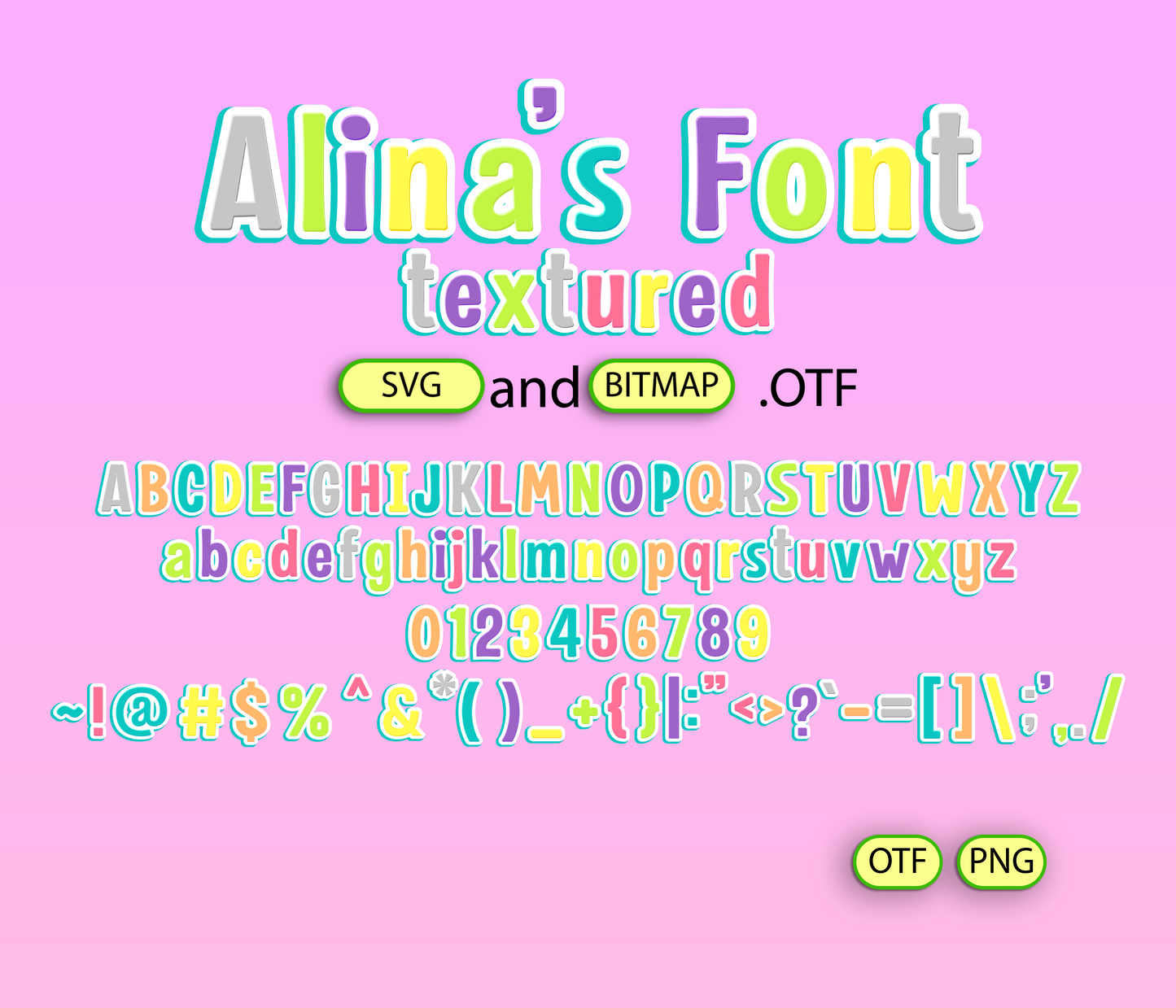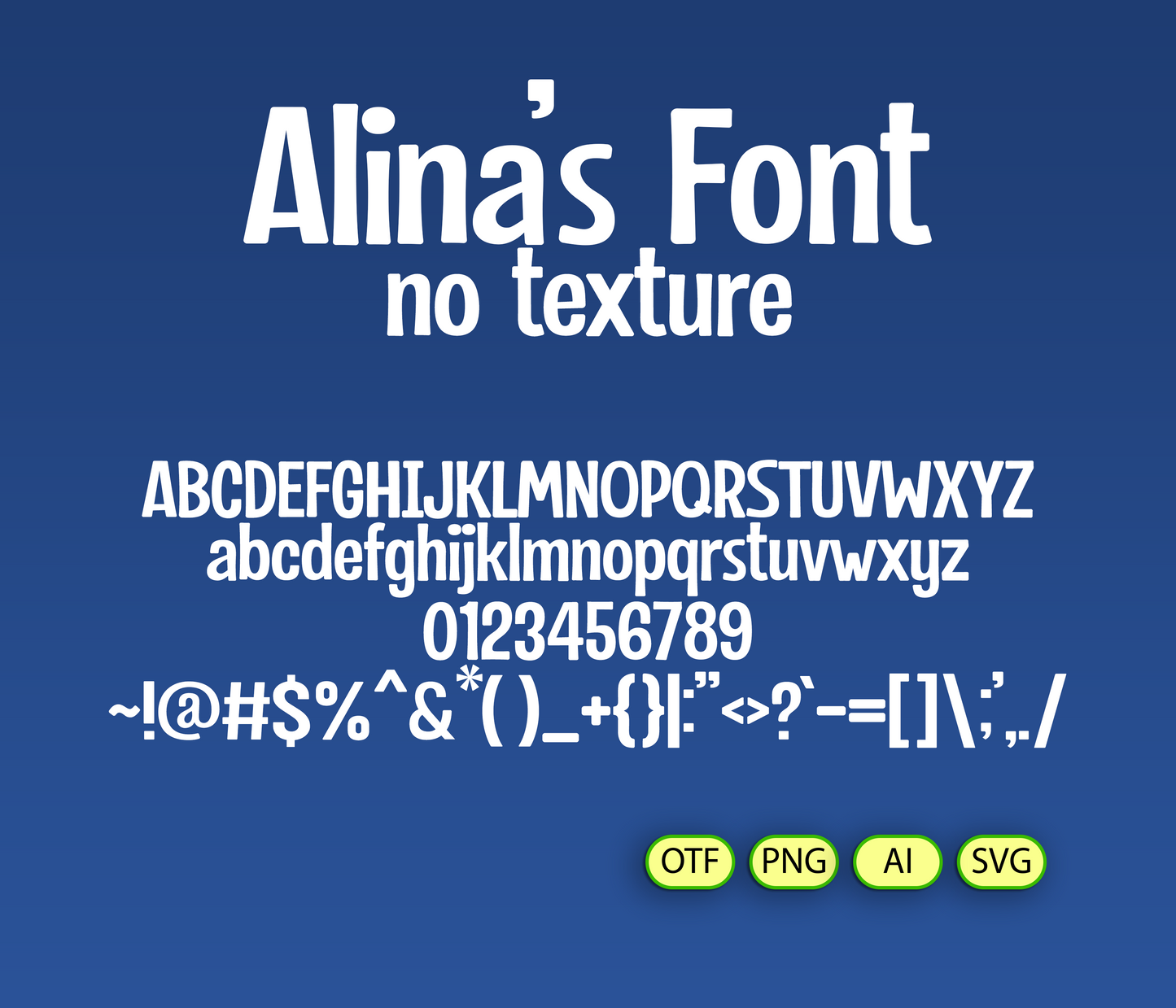
Squishie Companions Font Textured
Step into the delightful world of huggable plush friends with our Squishie Companions font, capturing the essence of round, ultra-soft collectibles and cozy adventures. Perfect for plush collectors, cute character enthusiasts, event organizers, and designers, this font brings the adorable, pillowy spirit of marshmallow-like toys to your projects. Create heartwarming materials, merchandise, or digital content with the irresistible charm of these beloved squishable pals.
Our Squishie Companions font features super-soft, rounded lines and puffy characters reflecting the world of collectible plush buddies. Ideal for:
- Event Promotions: Create snuggly invites, posters, and banners for toy meetups, children's parties, and themed gatherings that capture the spirit of plush collecting
- Merchandise Design: Perfect for t-shirts, posters, and accessories that showcase the undeniably cute aesthetic of round huggable friends
- Digital Media: Enhance websites, blogs, and social media with charming headers and graphics that express the joy of soft-textured characters
- Collector Content: Add authentic flair to fan works, plushie-inspired projects, and creative designs related to squishy pal collections
- Personal Projects: Bring pillowy charm to scrapbooking, DIY crafts, and home decor inspired by the world of round, huggable companions
Our font pays tribute to the beloved world of collectible round plush friends, empowering your designs with its soft and endearing spirit. Whether crafting promotional materials, designing merchandise, or adding a playful touch to personal projects, this font communicates the adorable essence of huggable collectibles. Ready to inject cuddly cuteness into your creations? This font is your key to charming, impactful design.